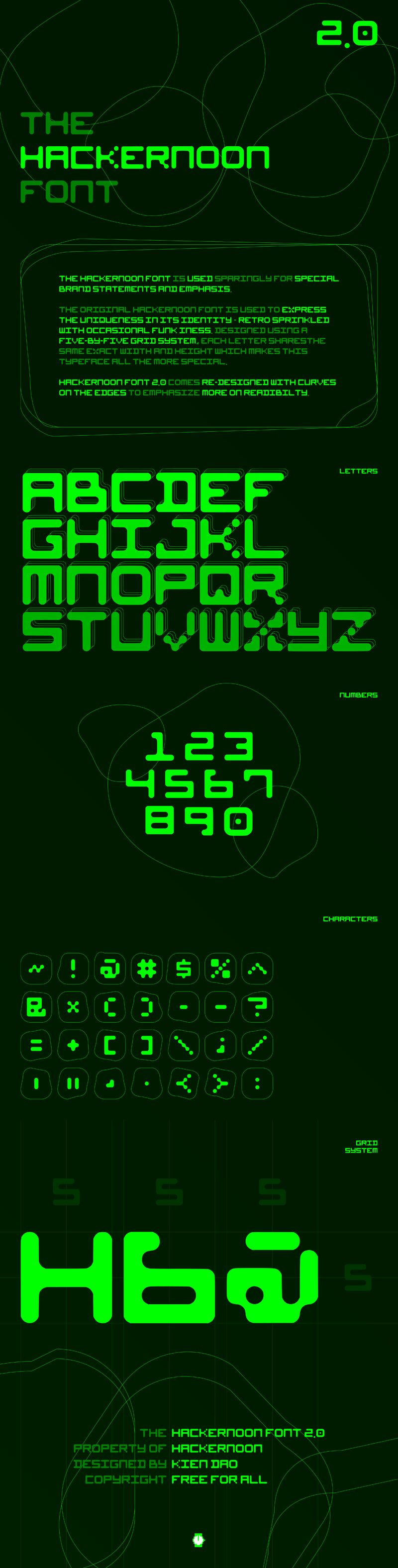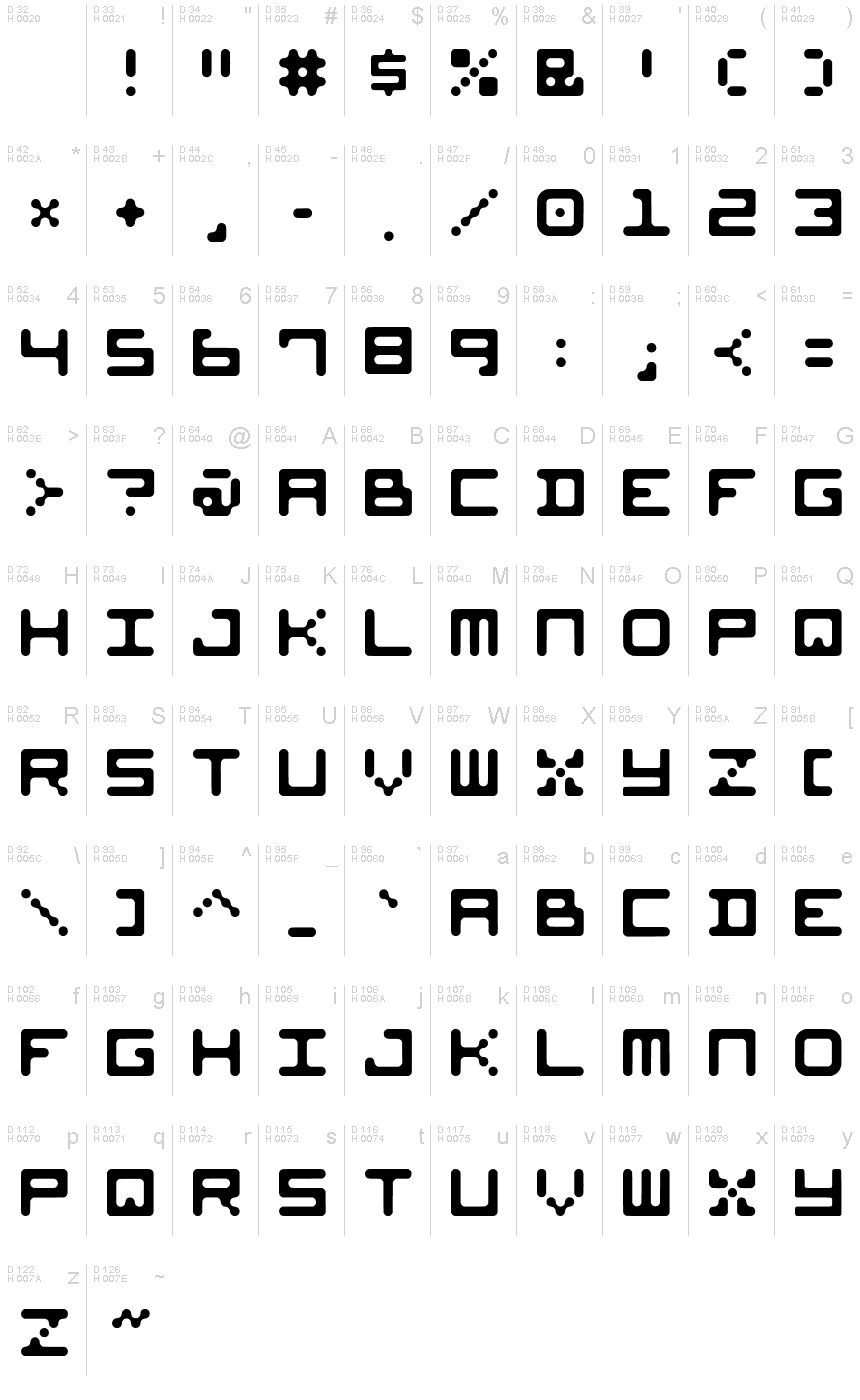
Hacker Noon V2 Regular
This is the source repository for HackerNoon Font: HackerNoons signature pixel font. The font comes in 26 letters, 10 numbers, and 31 exciting special characters.
HackerNoon Font 2.0 is here!
Just like the original font, HackerNoon Font 2.0, or #HF2, is designed using a five-by-five grid system in which each letter shares the same exact width and height as one another, making this font all the more unique in the first place.
However, in this version, all the edges on each letter are now 100% curved, giving the font a cleaner and more modern look. #HF2 emphasizes more on readability and usability - it is prompted to be utilized more in common settings like body text other than just headings and titles.
With #H2F, we at HackerNoon hope to keep our unique identity - a retro publication sprinkled with funkiness - but at the same time open ourselves to the modern world where soft and smooth traits speaks technology louder than hard edges.